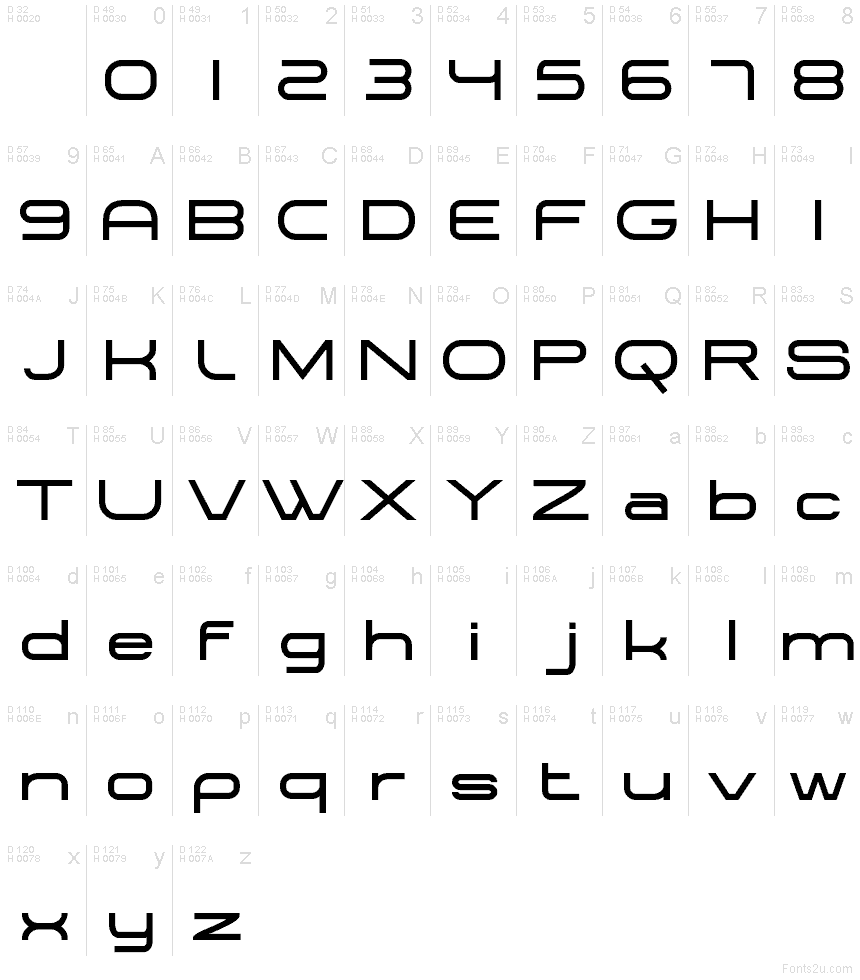
Starixo Regular
Starixo font by Tezar Tantular is a free futuristic display font that finally solves the “too edgy vs. too cute” sci‑fi dilemma. Its smooth, tubular strokes and pill‑shaped counters feel techy without the harshness, while clipped corners and tight joins add just enough bite. The rhythm is modular and steady, so headlines lock up cleanly and read fast even at a glance.
This free font shines on tech branding, esports and game logos, sci‑fi posters, UI headers, streaming graphics, and product packaging. Using Starixo gives you a glossy, engineered vibe that still feels approachable. Pair it with a thin, neutral sans for body copy, and track Starixo slightly tight at large sizes to emphasize its compact, rounded geometry.